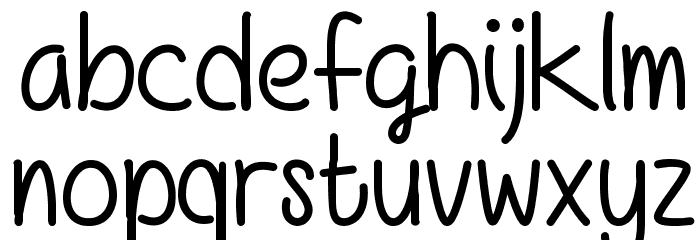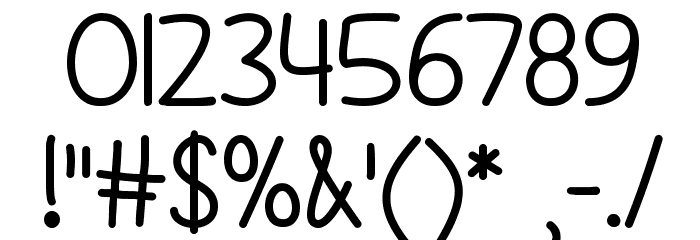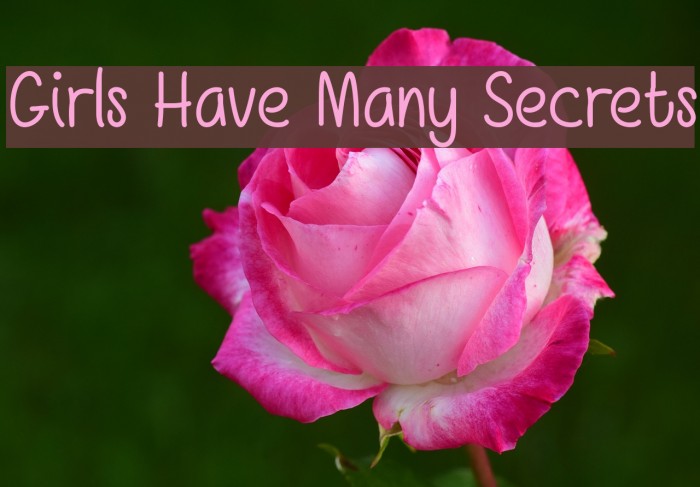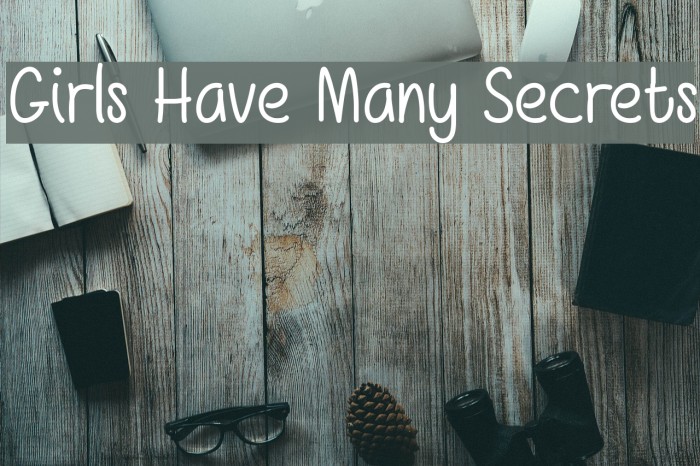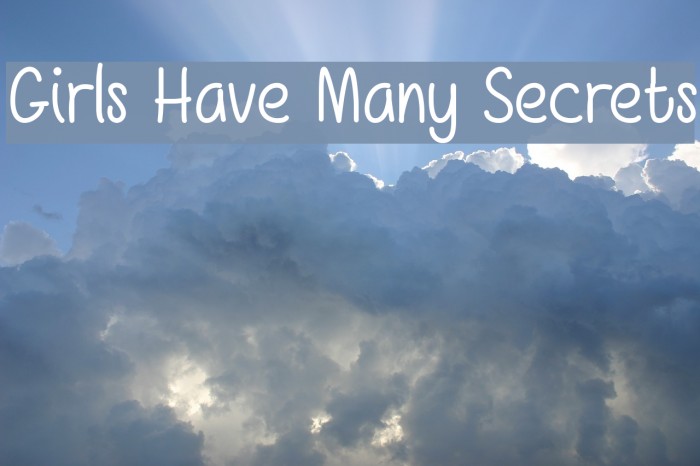
Girls Have Many Secrets Font
This playful and whimsical font features a handwritten style with a casual and friendly appearance. The letters are rounded and slightly irregular, giving it a personal touch that resembles a child's handwriting. The strokes are consistent in thickness, providing a uniform look across all characters. The font includes both uppercase and lowercase letters, numerals, and a variety of special characters, making it versatile for different uses. Its informal style makes it suitable for projects that require a fun and approachable feel.
A playful handwritten font with rounded, casual letters.
- Proposed Projects: Ideal for children's books, greeting cards, playful branding, and informal invitations.
- Overall Style: Casual, Playful
- Use Case: Headlines, Informal text, Creative projects